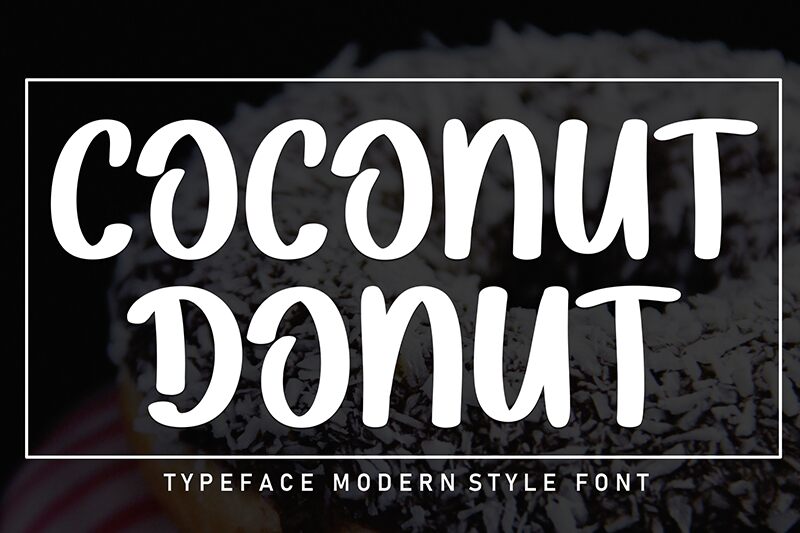
Coconut Donut
Coconut Donut font is a free handwritten font designed by Andi Moz that has a unique vintage feel with brush marker elements. Its casual tone and rounded form give it more of an animated look all while exuding an artistic flair without sacrificing its professional appearance.
Use this typeface for logotype, packaging, posters, product labels, magazine covers, merch designs, titles and headers. It can also work well for social media posts or highlight covers.